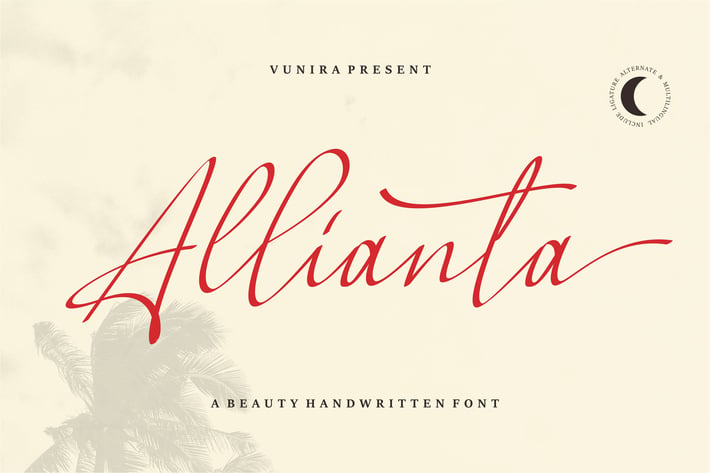
Allianta | A Beauty Handwritten Font
Allianta | A Beauty Handwritten Font with a calligraphy style, So beautiful on invitation like greeting cards, branding materials, business cards, quotes, posters, and more!